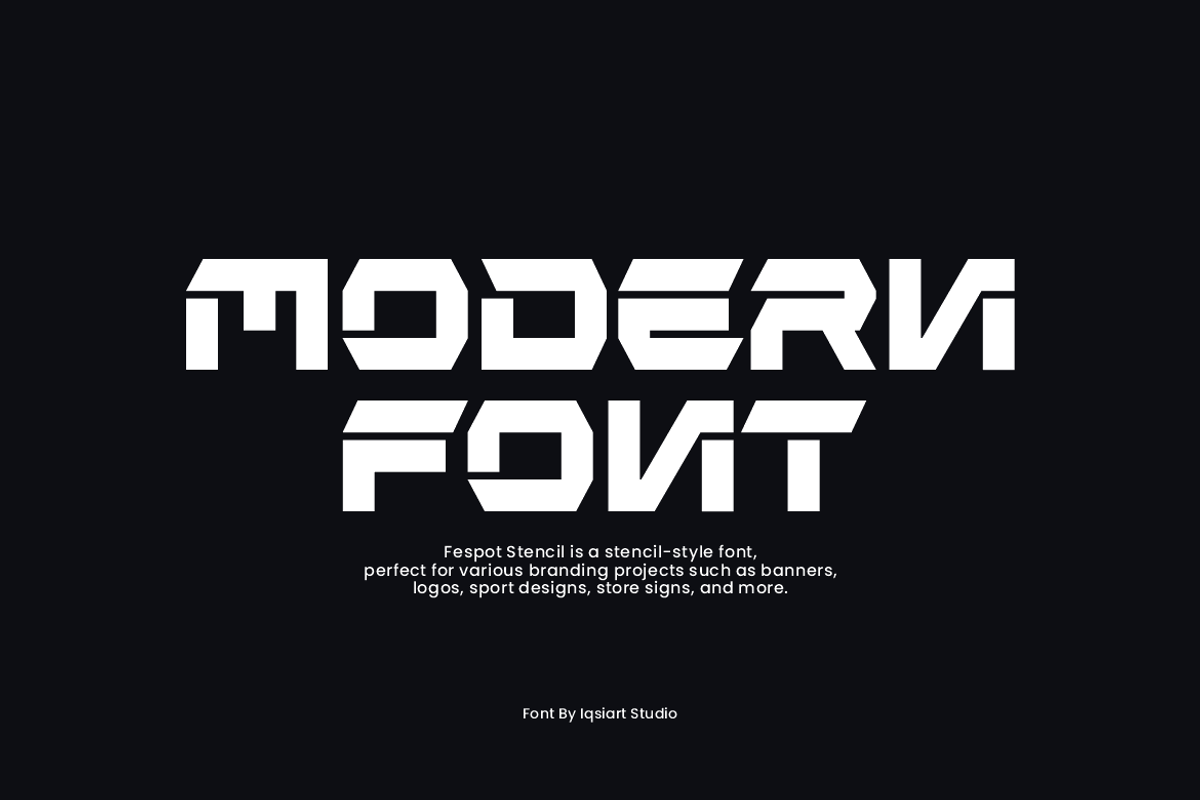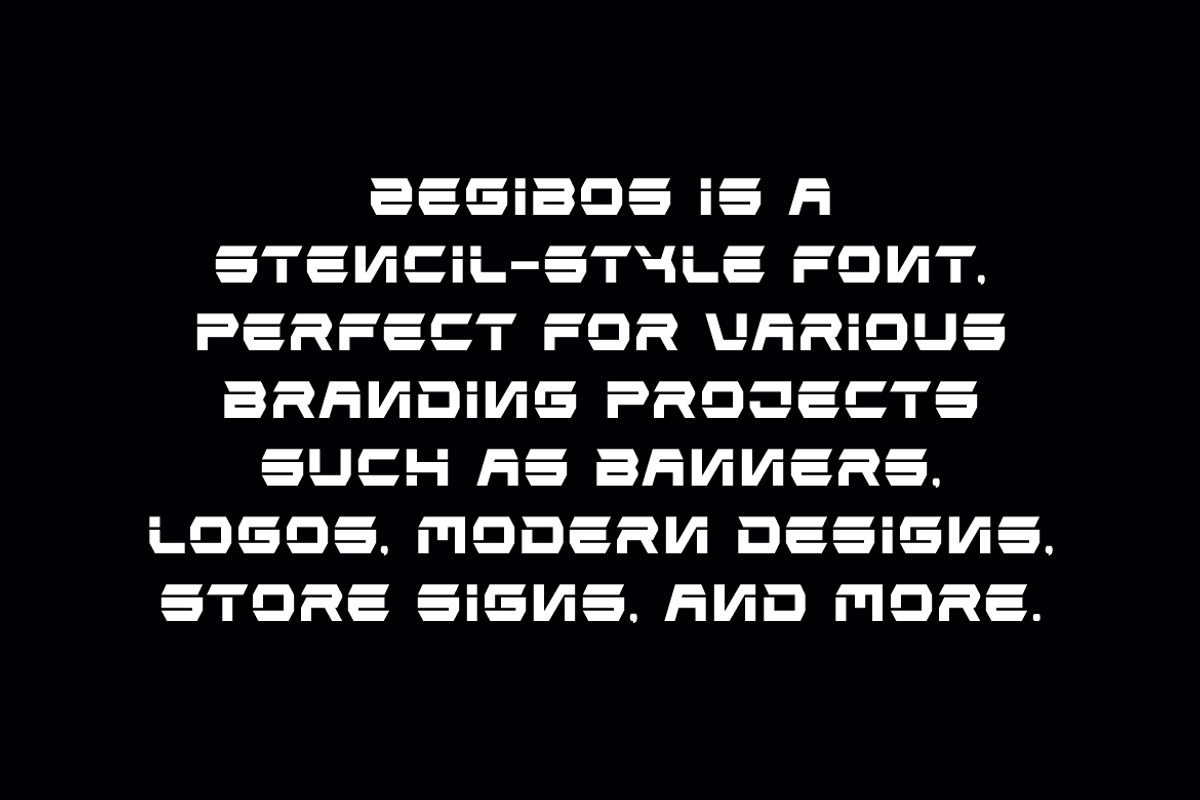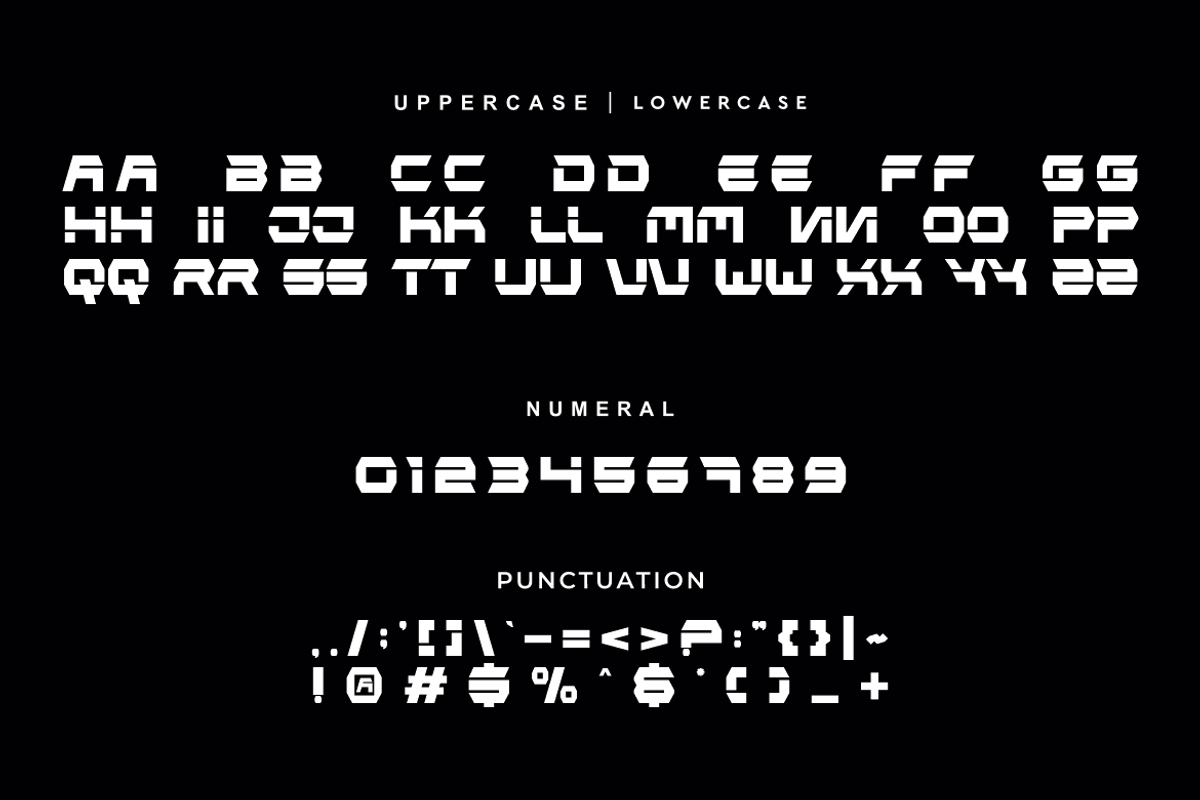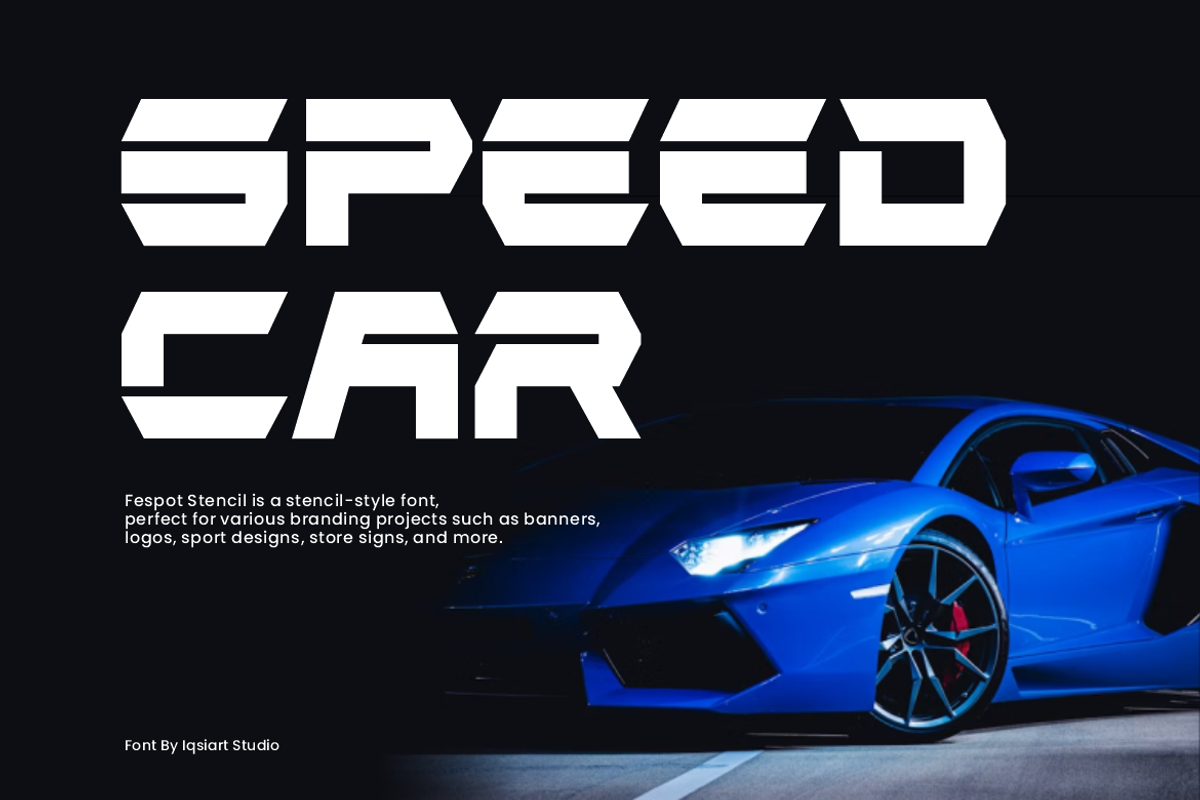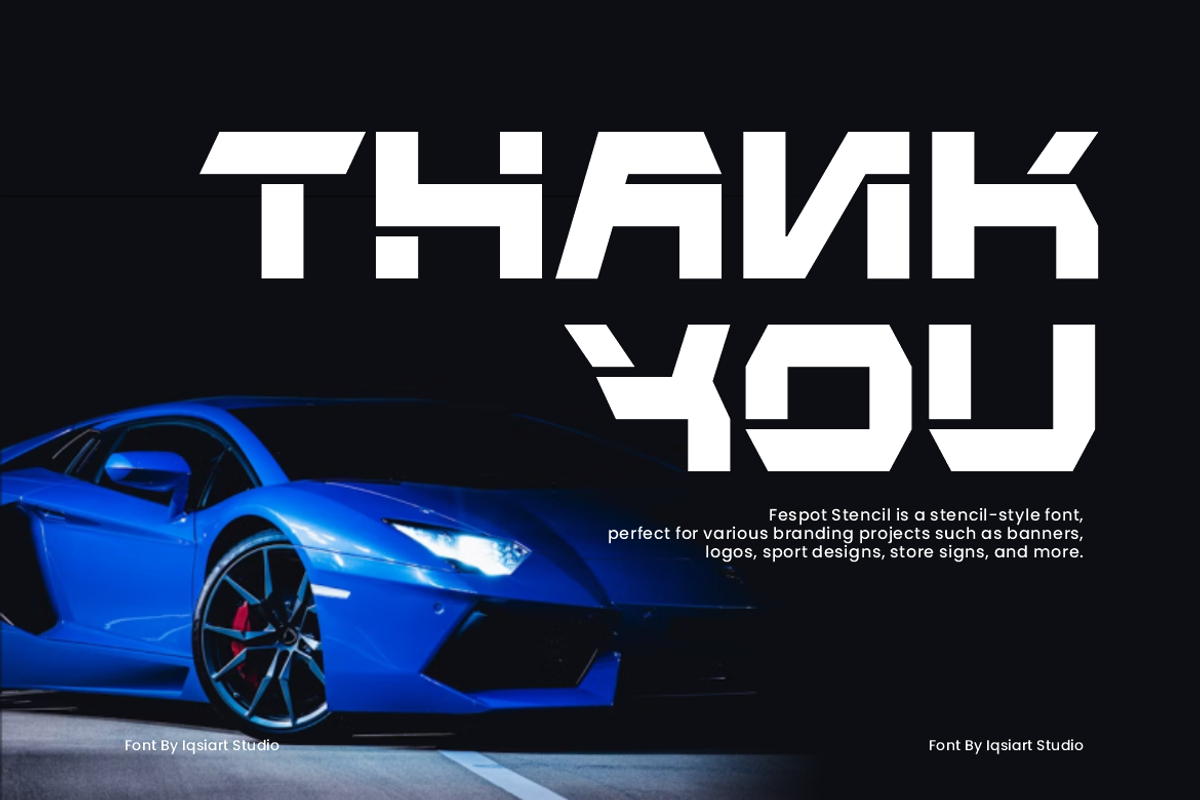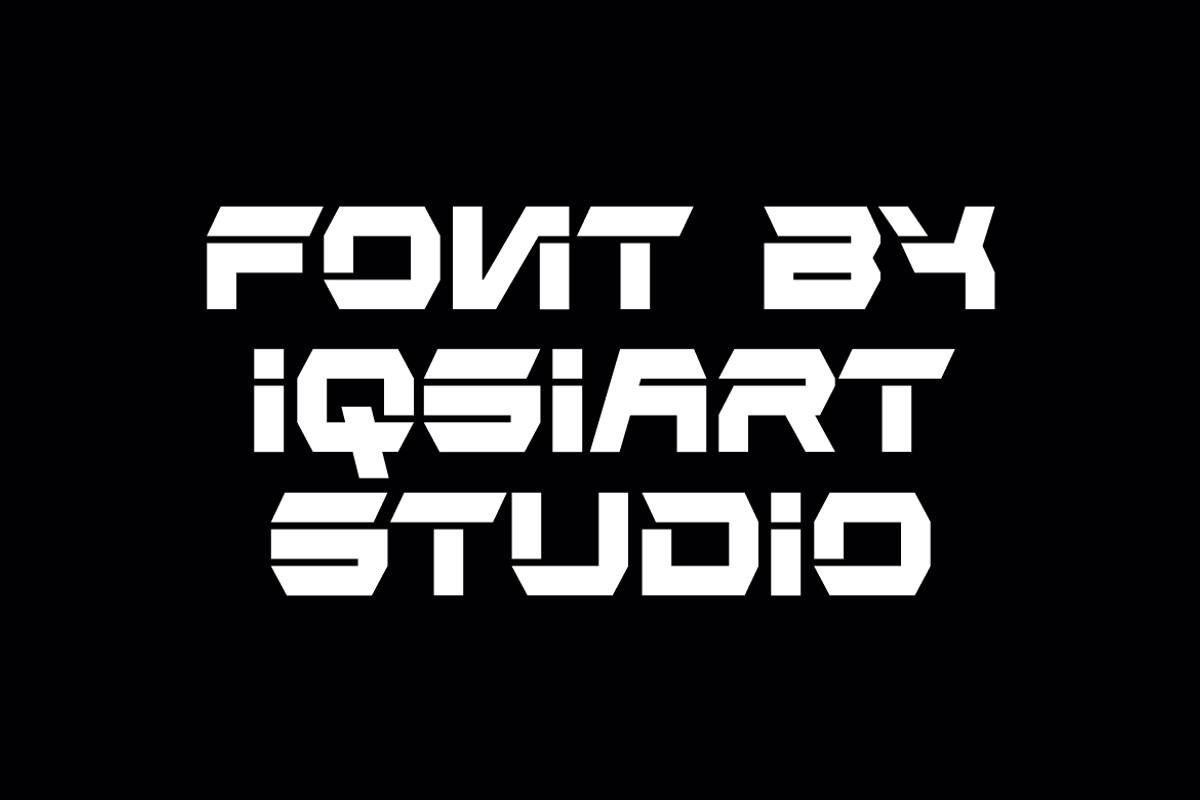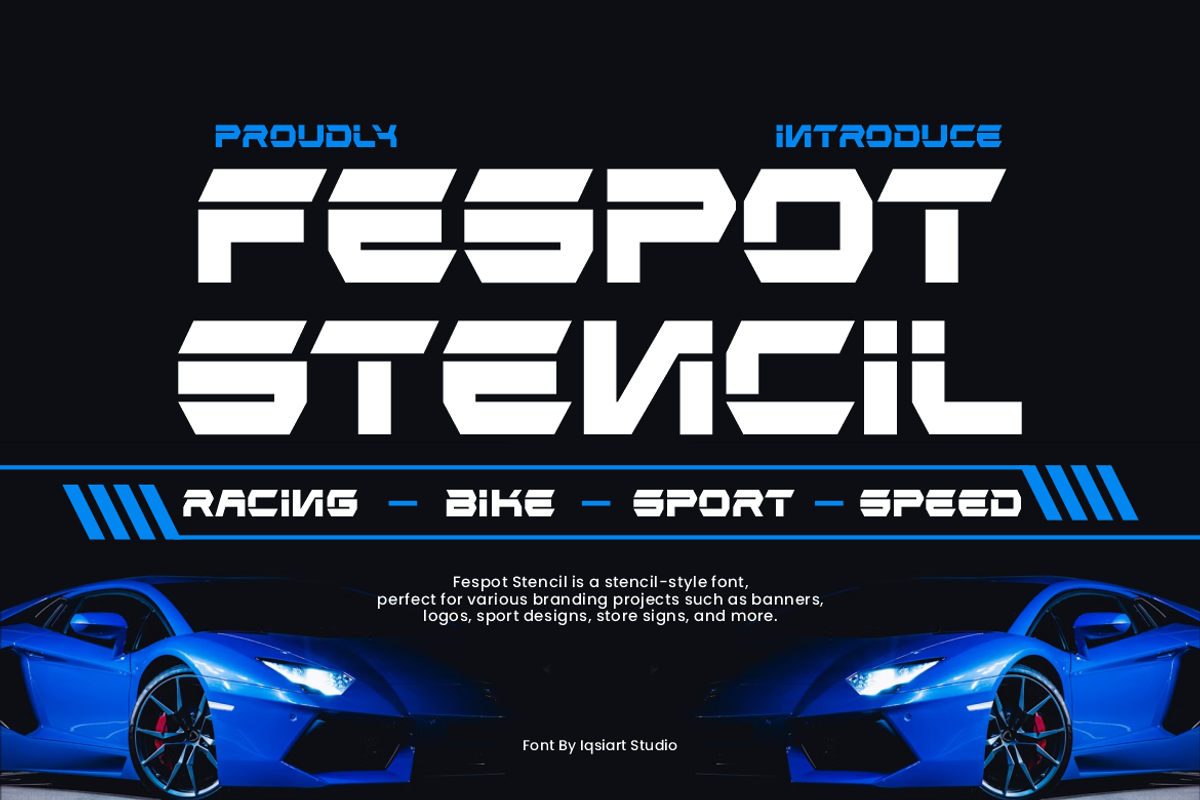
Fespot Stencil - Racing Font
Fespot Stencil Font is a bold and authentic display typeface that suits a variety of design needs. We offer a wide range of themes and font styles — visit our profile to explore more and find the perfect style for your project.